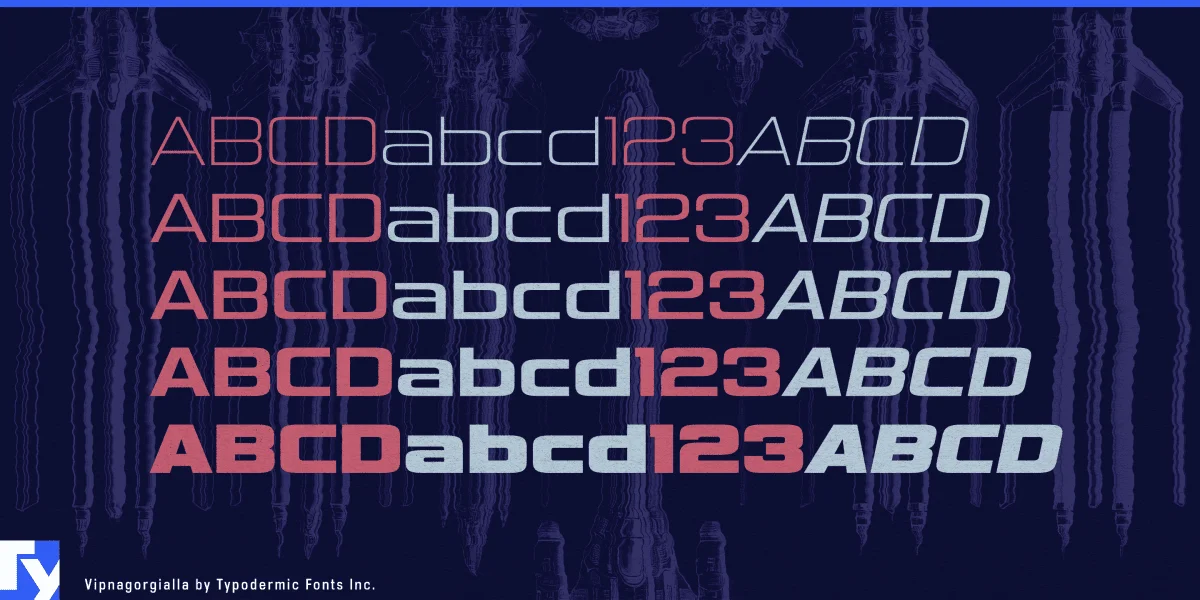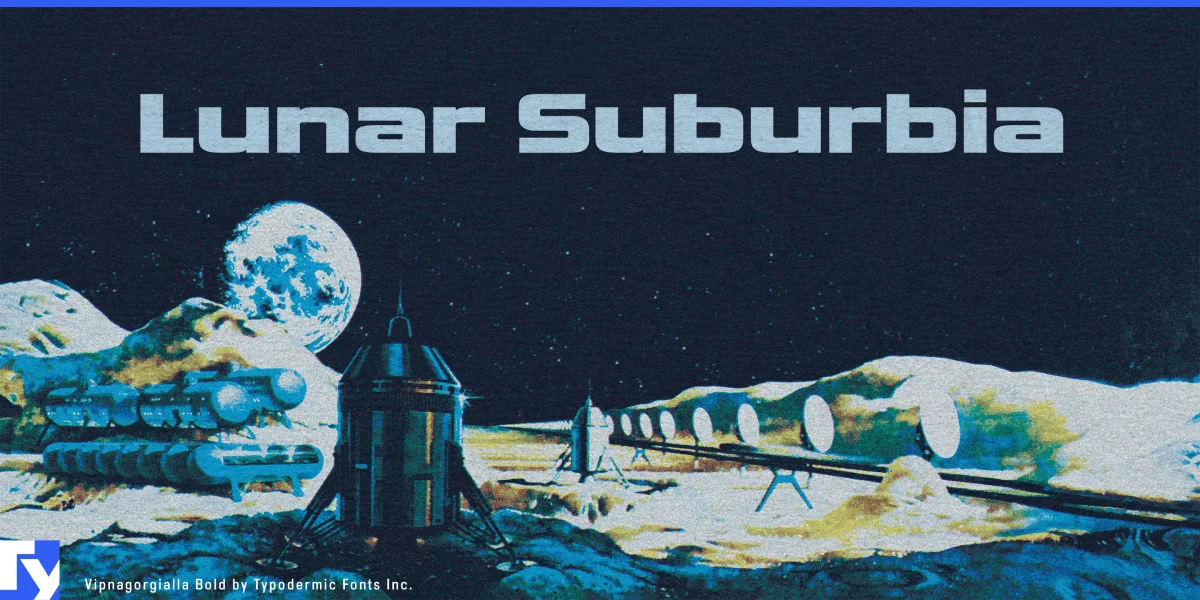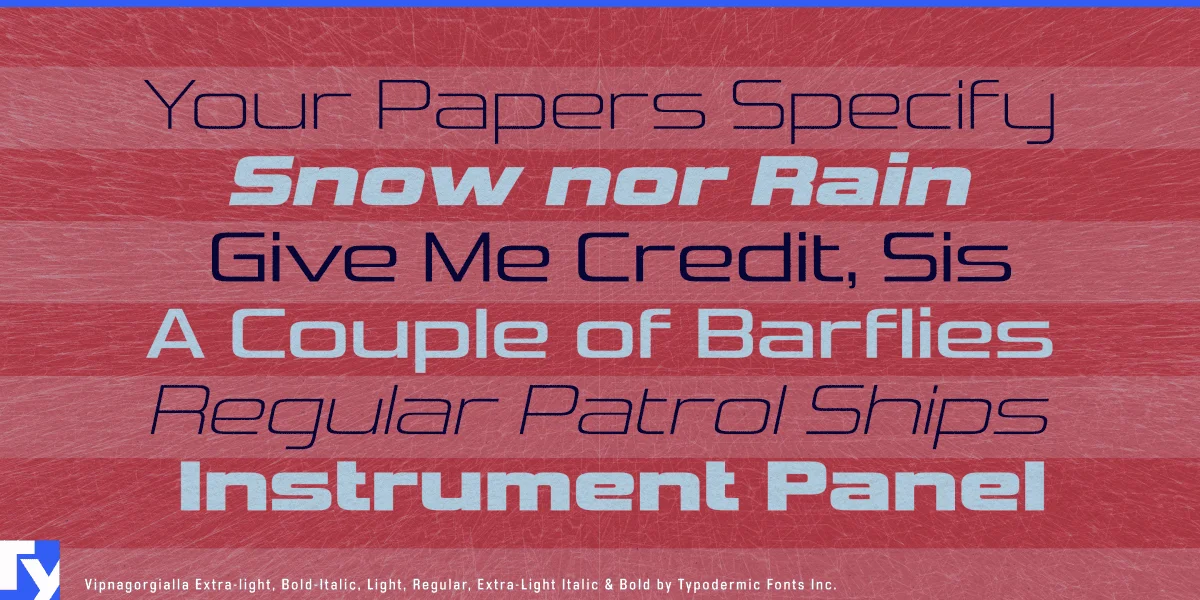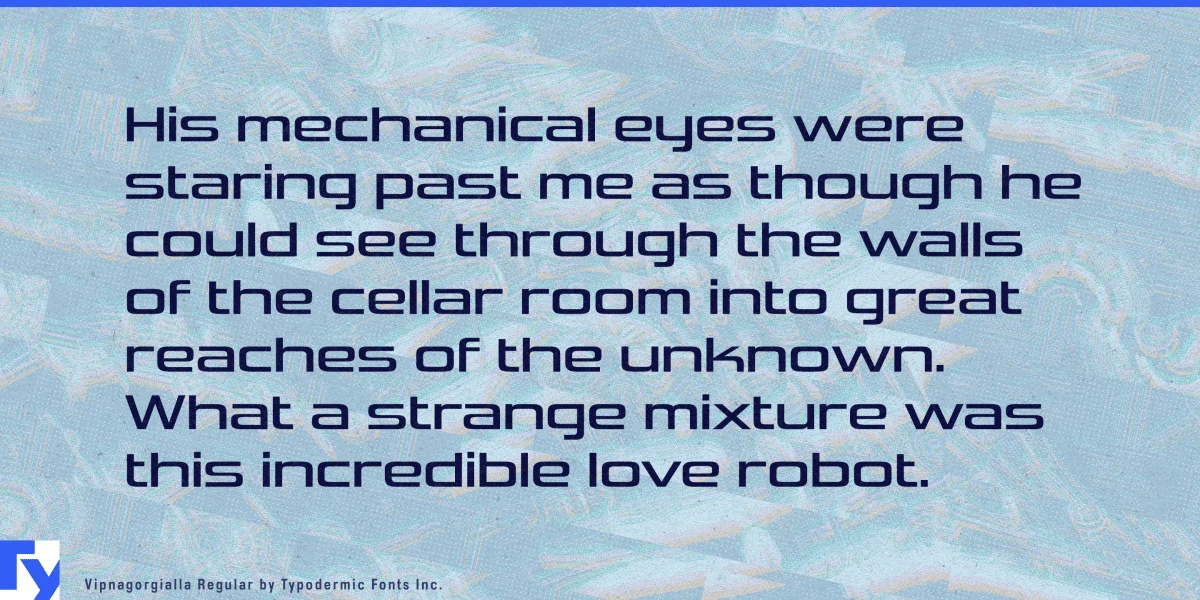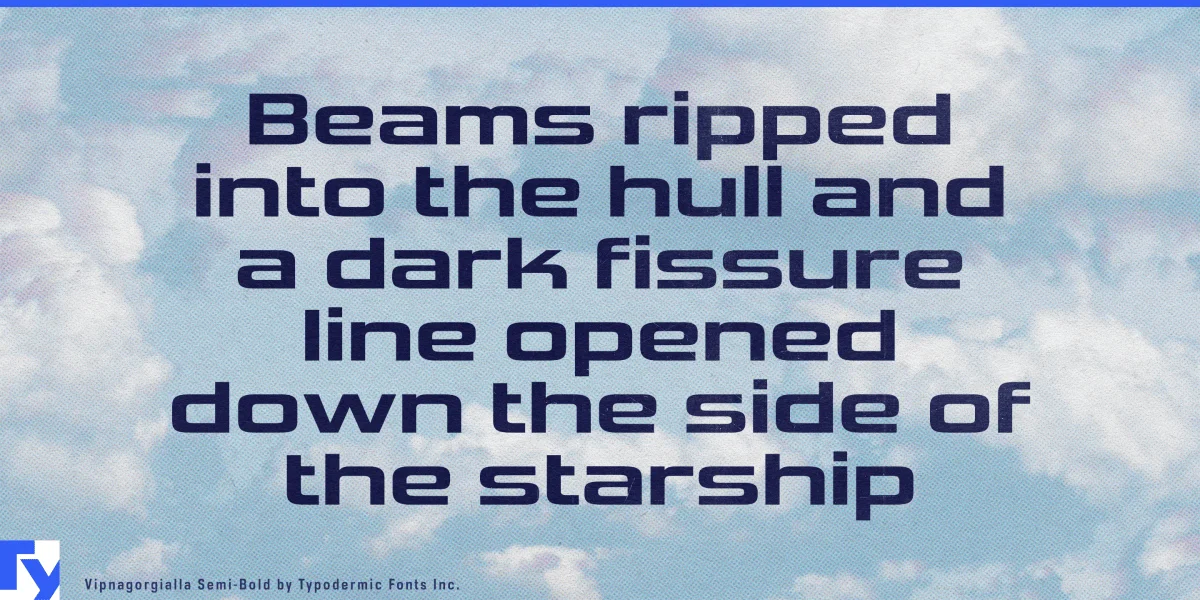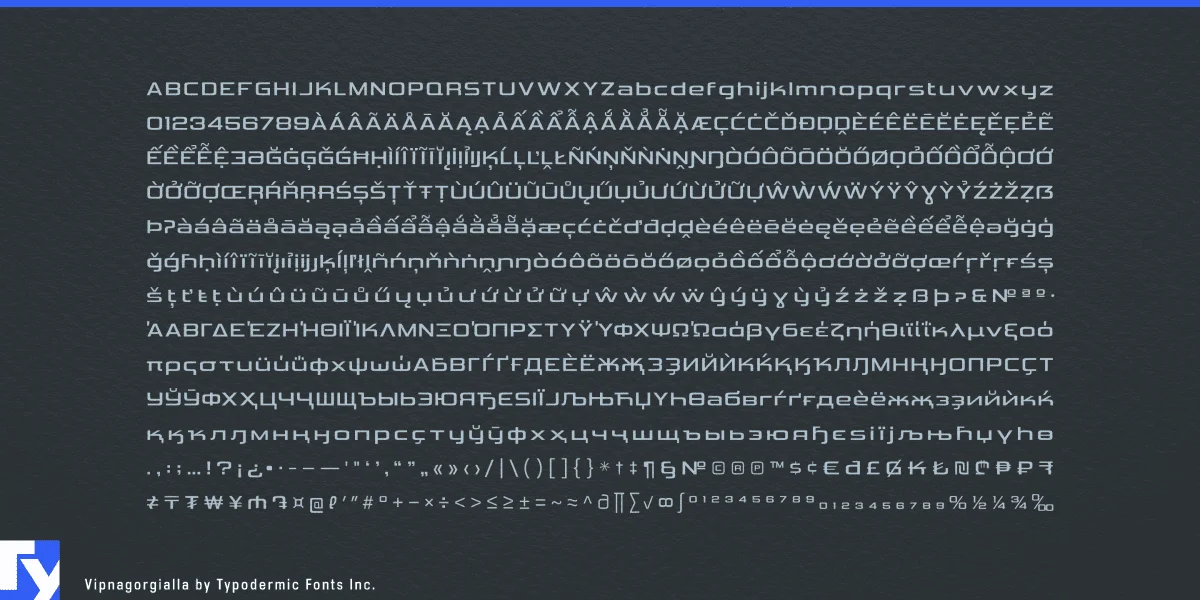
Prepare for liftoff with Vipnagorgialla, the typeface that captures the bold spirit of the space race era. This is a visual countdown to typographic excellence, inspired by the iconic Dodge/Plymouth logotype that roared onto the scene in the late 1960s, just as humanity was reaching for the stars.
Vipnagorgialla’s wide, square letterforms stand like launchpads, ready to propel your designs into orbit. But this isn’t a mere reproduction of retro aesthetics—it’s been streamlined and optimized for modern missions. The result? A typeface that combines the raw power of industrial design with the sleek efficiency of a spacecraft, giving your message the thrust it needs to break free from Earth’s gravitational pull of ordinary typography. With five weights and their oblique counterparts, Vipnagorgialla offers more range than a multi-stage rocket. From the lightweight characters that float like satellites to the heavy fonts that anchor your design like a massive booster engine, you’ll find the perfect combination to achieve escape velocity for any project.
Vipnagorgialla doesn’t just speak—it broadcasts across the cosmos. Supporting an impressive array of writing systems, from Latin-based European languages to Vietnamese, Greek, and Cyrillic, this typeface ensures your message is received loud and clear, whether you’re communicating with Mission Control or making first contact with distant civilizations. Deploy Vipnagorgialla for crafting logos that command attention like a rocket launch, designing posters that capture the excitement of space exploration, creating websites that showcase cutting-edge technology, or developing signage that guides visitors through your own mission control center. The possibilities are as vast as the universe itself.
Don’t let your designs be grounded by pedestrian typography. Choose Vipnagorgialla and watch as your projects achieve lunar landing levels of impact. It’s more than a typeface—it’s a giant leap for designkind.